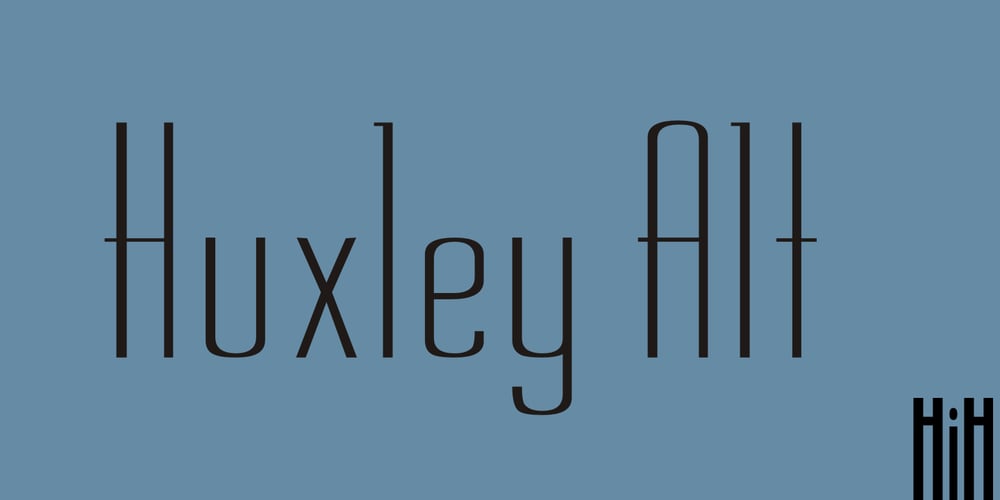
Huxley Alt Font Family was designed by published by HiH. Huxley Alt contains 1 styles and family package options. Huxley Alt is just that — an alternative to Huxley Vertical by ATF. It represents one of my earliest efforts. I liked the crispness of Huxley Vertical, but wanted a lowercase and with some modulation of the strokes as in Empire, also by ATF. Huxley Alt is the result. Highly condensed. Set it large or lose it. Huxley Alt is a bargain-priced font with 226 glyphs, covering the usual Western European accents (ref MS Code Page 1252). If you like the style, but would like more glyphs and/or a range of weights, may we suggest our Huxley Amore. Huxley Amore has 379 glyphs and covers the Eastern European, Baltic and Turkish code pages (1250, 1254 and 1257). We also offer Huxley Cyrillic in a single weight.